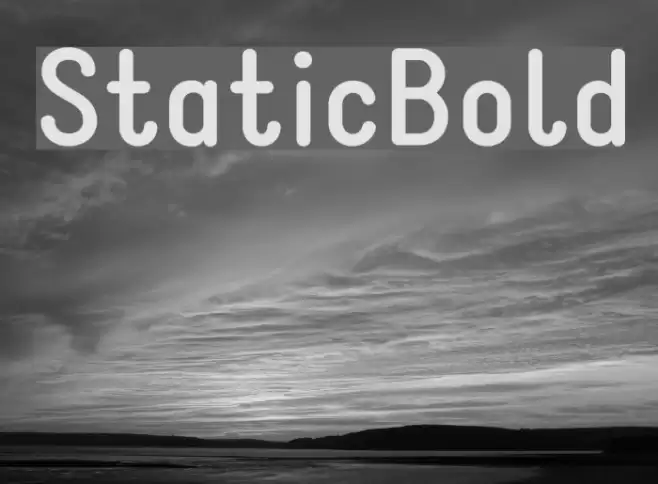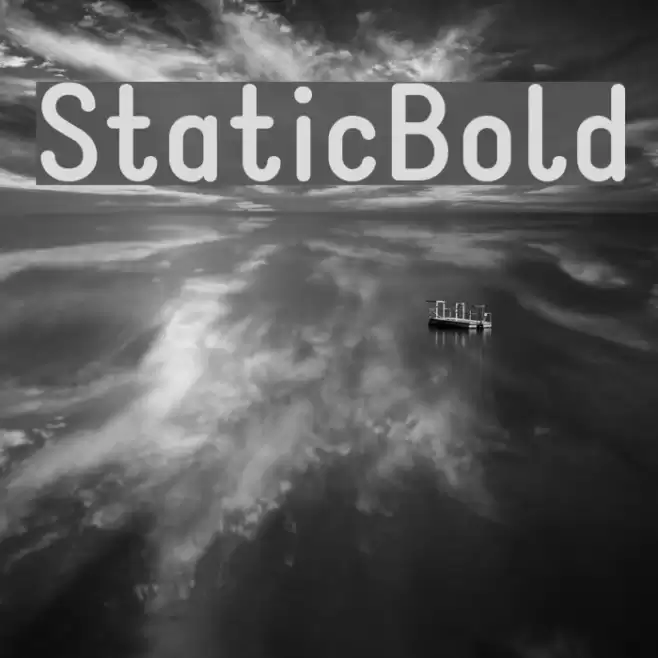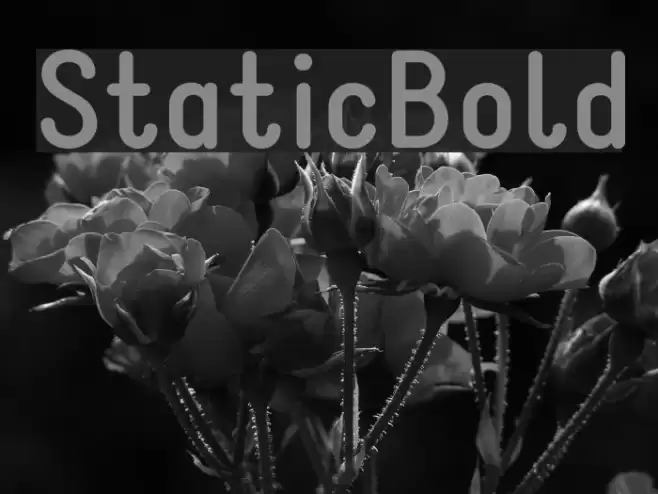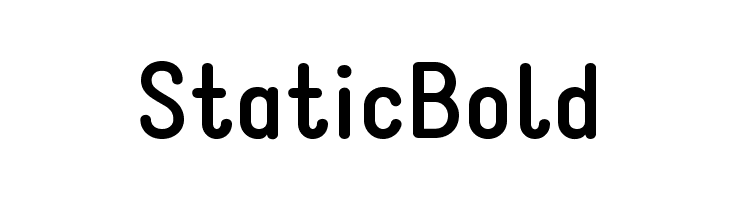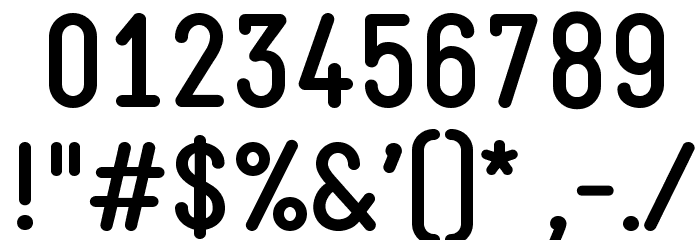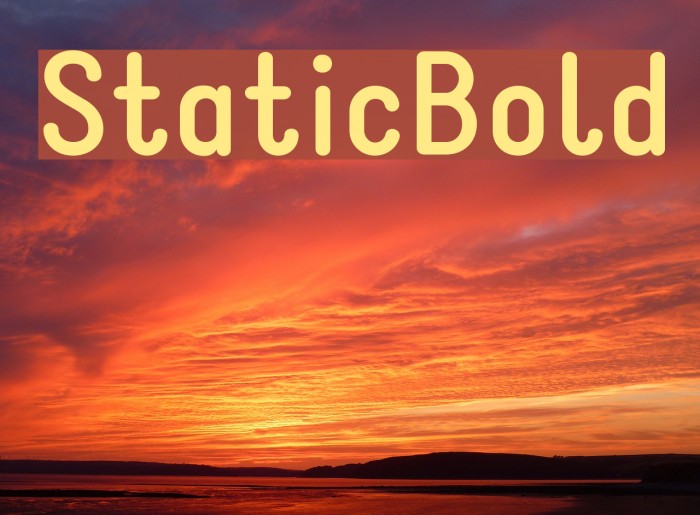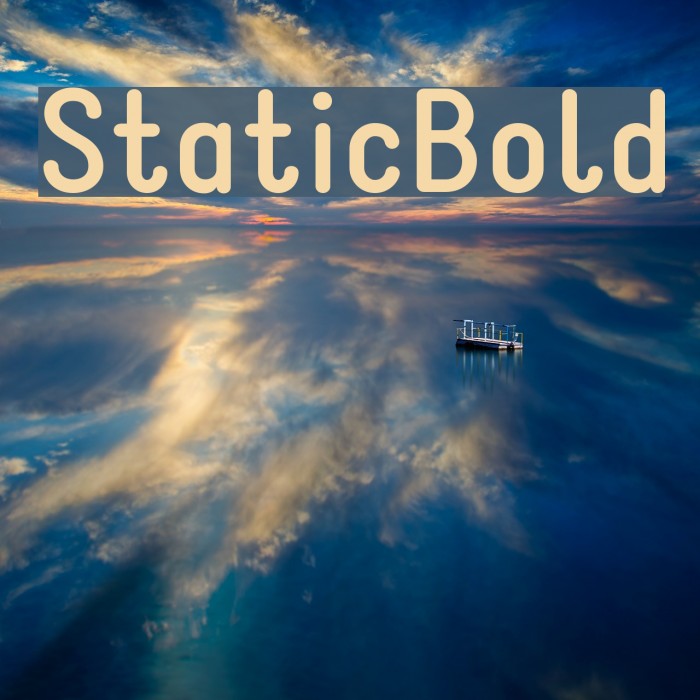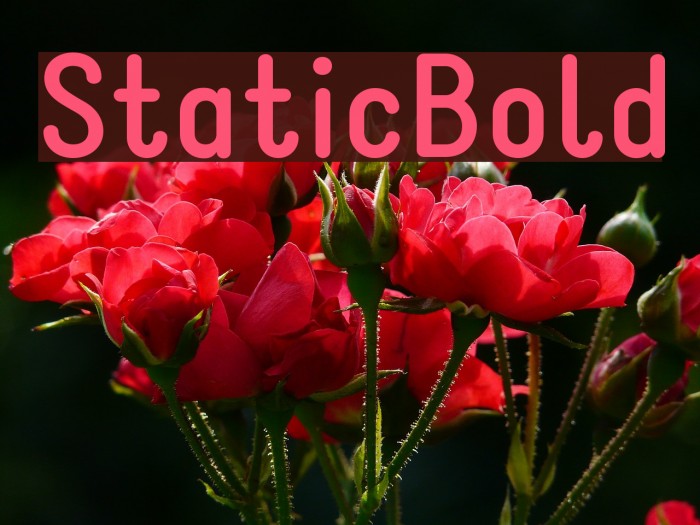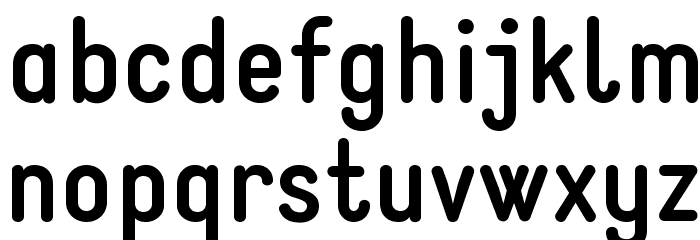
StaticBold
This font features a clean, rounded sans-serif style with uniform stroke widths, giving it a modern and approachable appearance. The characters are well-proportioned, with a consistent height and width that ensures readability across various sizes. The rounded edges soften the overall look, making it suitable for both digital and print media. The numerals and special characters maintain the same rounded aesthetic, ensuring a cohesive look throughout. This font's simplicity and clarity make it versatile for a wide range of applications, from branding to web design.
A modern, rounded sans-serif font with uniform strokes and excellent readability.
- Proposed Projects: Ideal for branding, web design, user interfaces, signage, and educational materials.